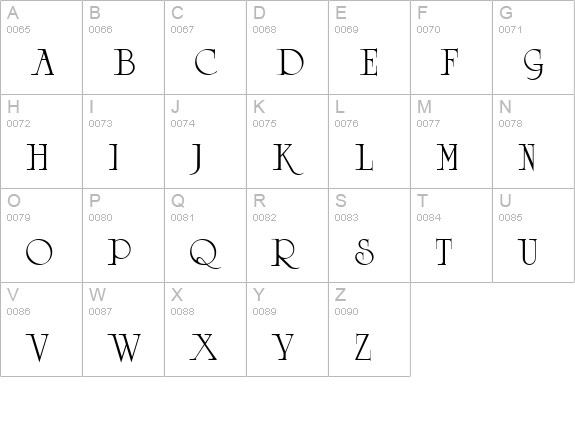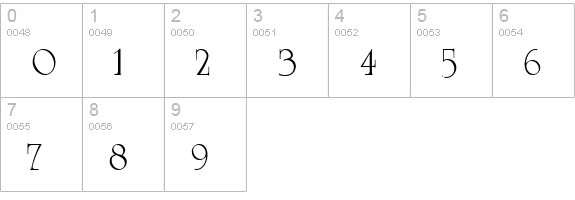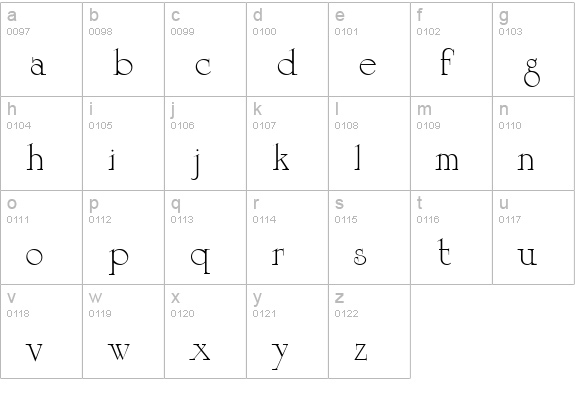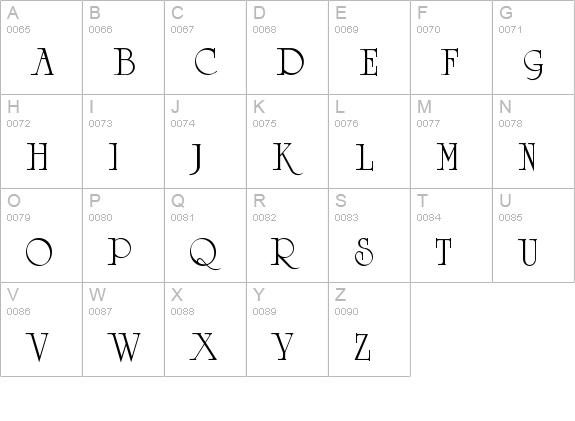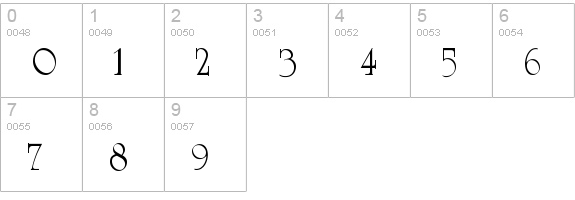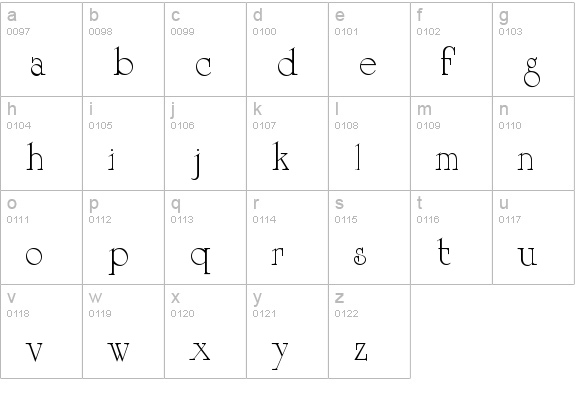
Piquet SSi is a stunningly elegant font that effortlessly combines modern sophistication with a touch of timeless charm. With its clean lines and delicate curves, this typeface is perfect for conveying a sense of refined elegance in any design project. Piquet SSi is a versatile font that can be used in a variety of contexts, from branding and logos to editorial layouts and web design. Its legibility and clarity make it a reliable choice for both large and small text sizes, ensuring that your message is always conveyed with utmost clarity. What sets Piquet SSi apart is not only its impeccable design but also its accessibility. Unlike many other high-quality fonts, Piquet SSi is freely available to download at FontsMarket.com. This means that designers and creatives from all walks of life can enjoy and utilize this exceptional font without any financial burden. Whether you're working on a personal project or a professional endeavor, Piquet SSi is the perfect font to elevate your designs. Its versatility, elegance, and accessibility make it a valuable addition to any typographic toolbox. Download Piquet SSi for free at FontsMarket.com today and unlock the full potential of your creative vision.